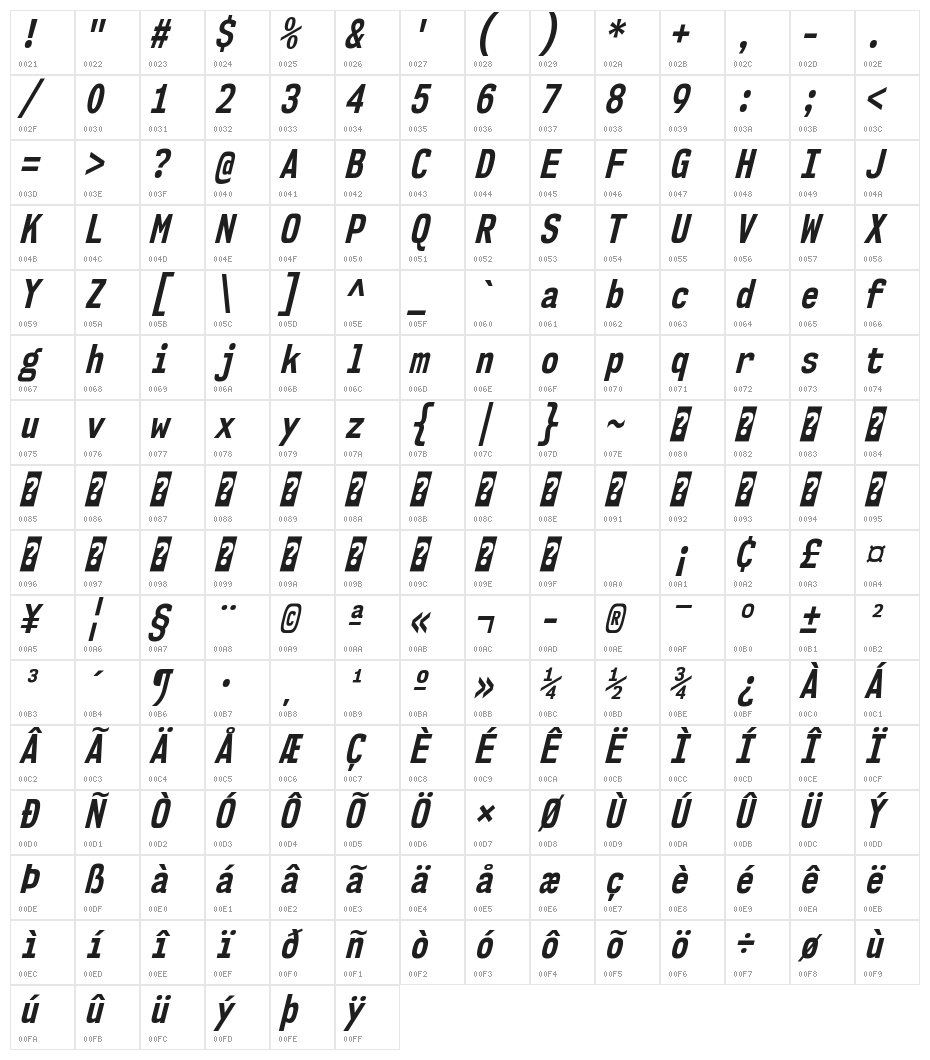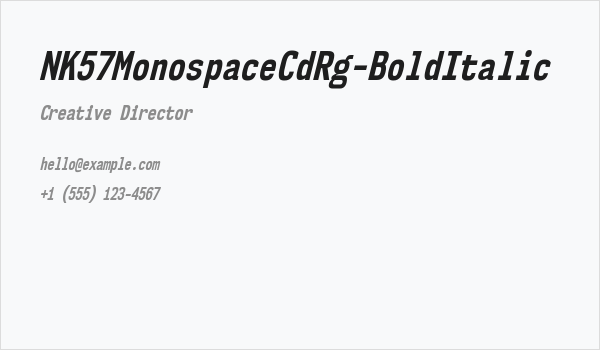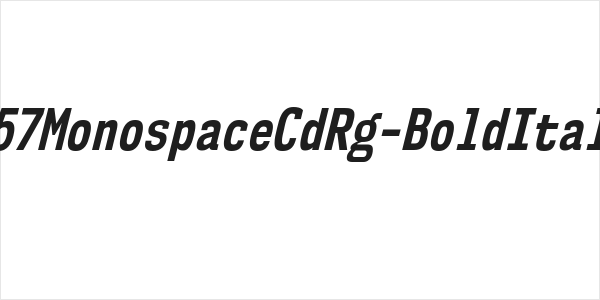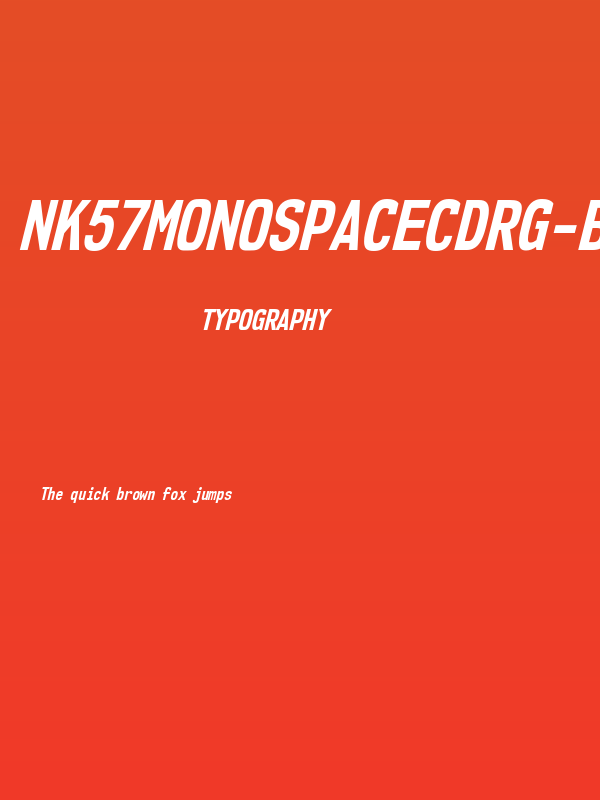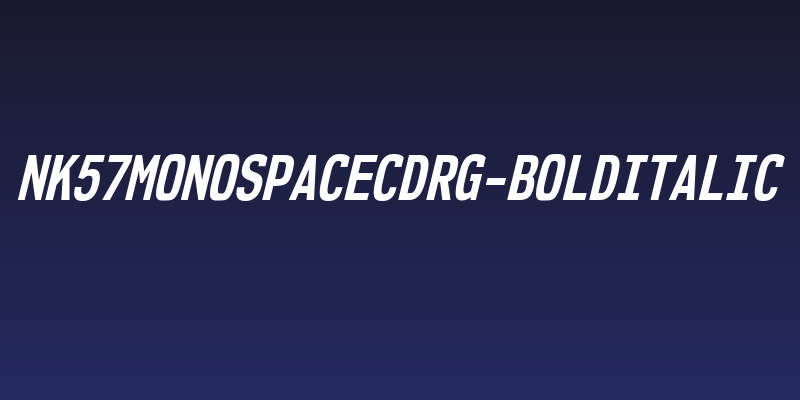
NK57MonospaceCdRg-BoldItalic Font
NK57MonospaceCdRg-BoldItalic Description
This font exhibits a bold and italicized style, characterized by its monospaced design. Each character occupies the same amount of horizontal space, which is typical for monospaced fonts. The letters are slightly slanted, adding a dynamic and modern touch to the otherwise uniform spacing. The bold weight ensures strong visibility and emphasis, making it suitable for coding environments or any application where alignment and readability are crucial. The font maintains a clean and professional appearance, with a consistent stroke width that enhances its legibility. The characters are well-defined, with clear distinctions between uppercase and lowercase letters, as well as numerals and special symbols.
Use CaseCoding, Technical documentation, Headlines
Proposed ProjectsIdeal for coding, technical documentation, or any project requiring precise alignment and readability.